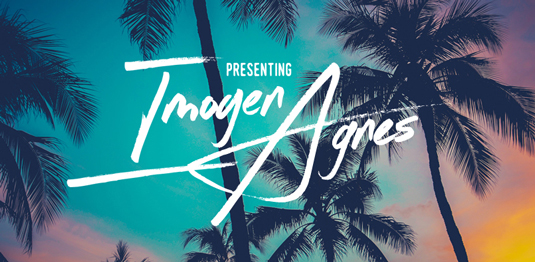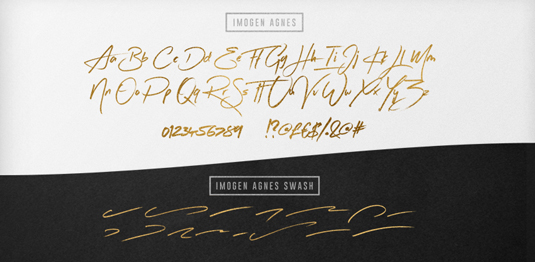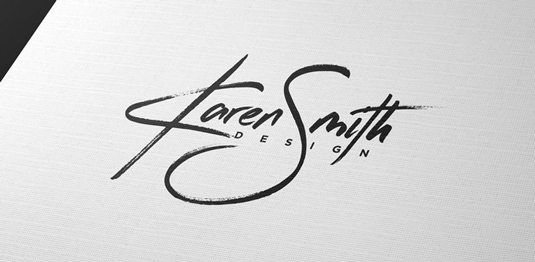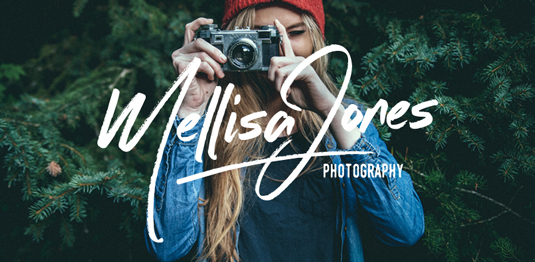
Font of the day: Imogen Agnes
Imogen Agnes from Set Sail Studios
Finishing off our font of choice posts for the week is Imogen Agnes, a handmade, signature-style typeface, created by the team at creative agency Set Sail Studios.
Designed to create personal, stylish lettering quickly and easily, Imogen Agnes is great for personal logos, but also makes for a strong standalone script font with a bit of a retro vibe to it. Imogen Agnes is available to purchase over on HypeForType.